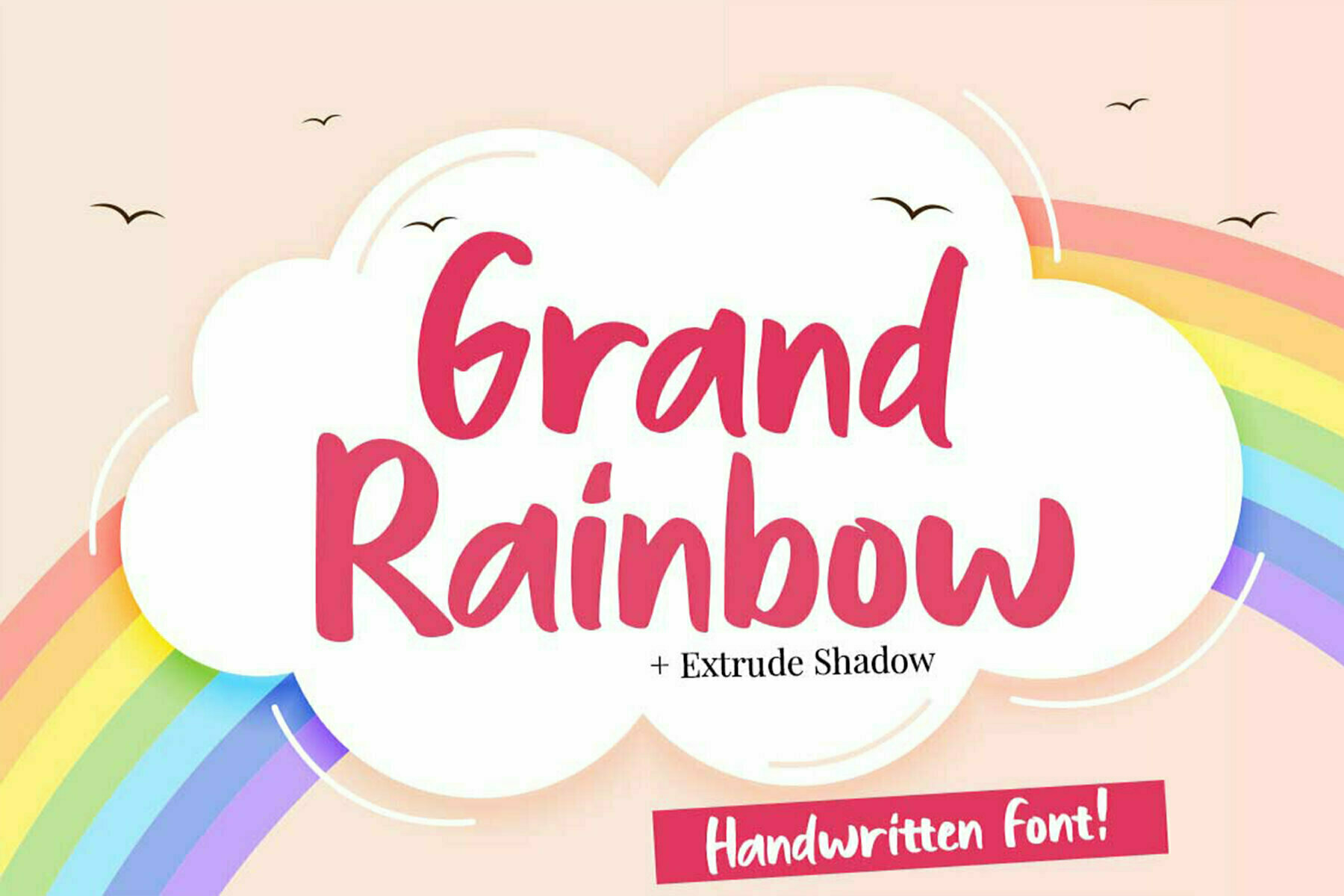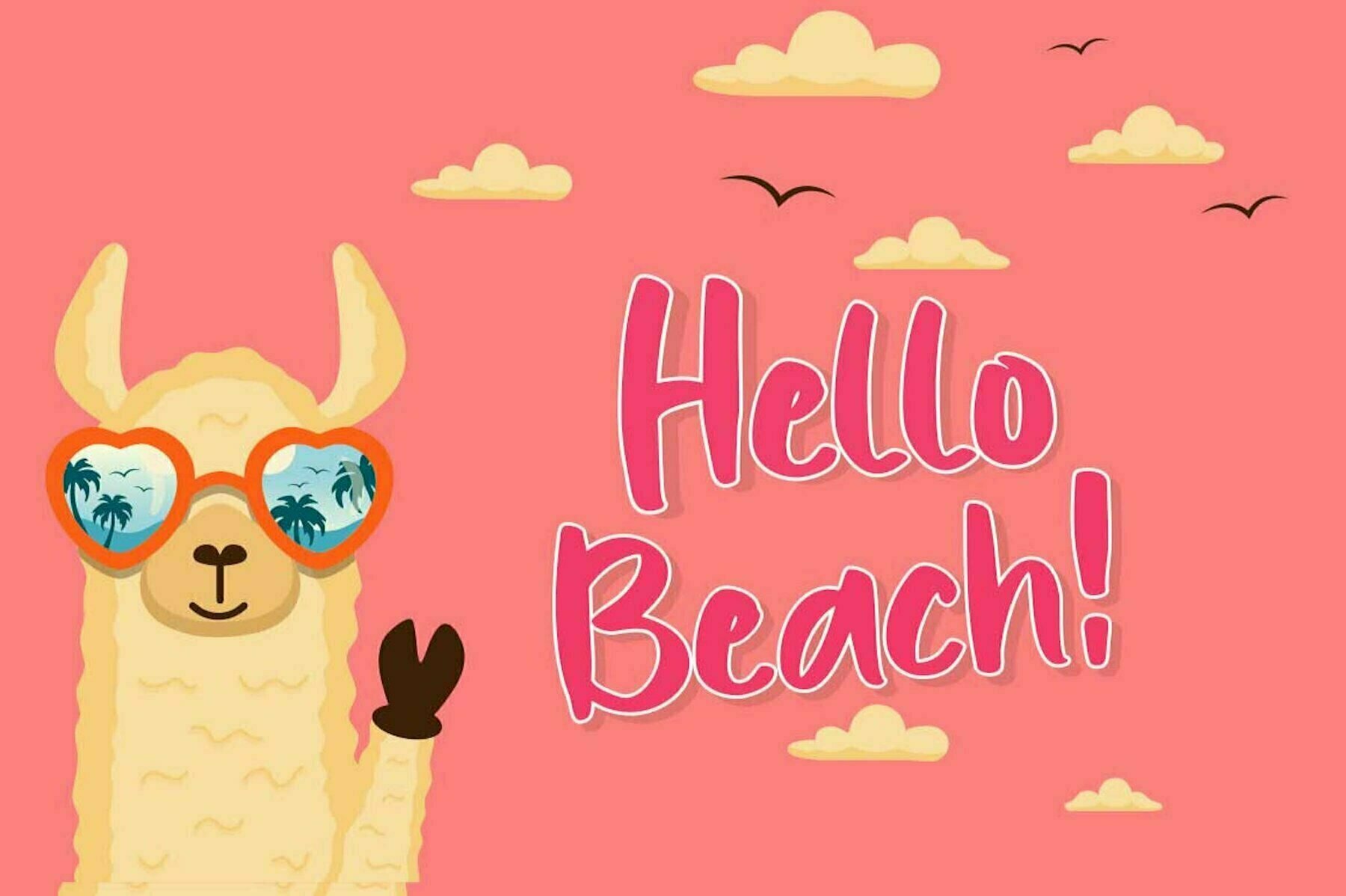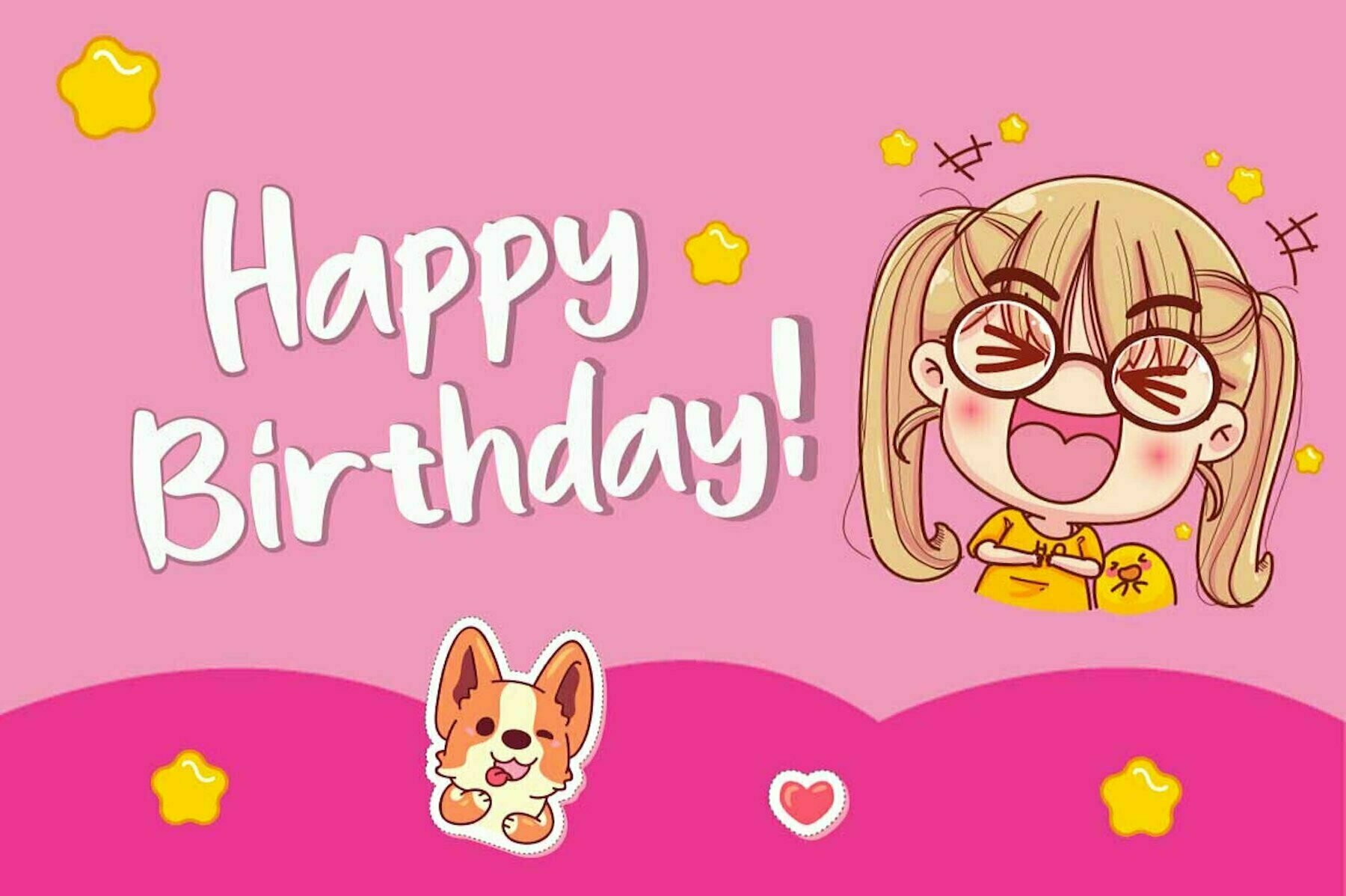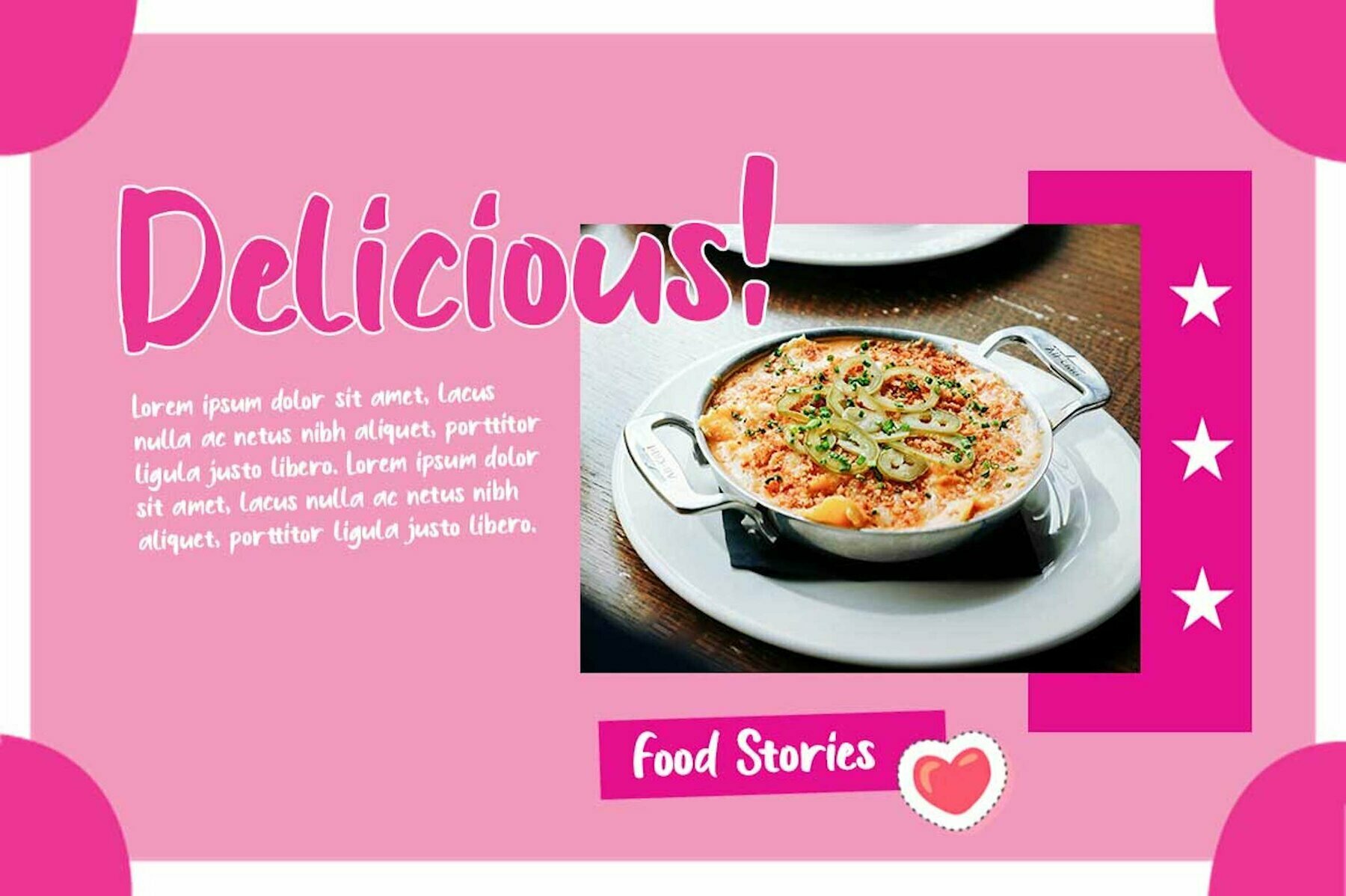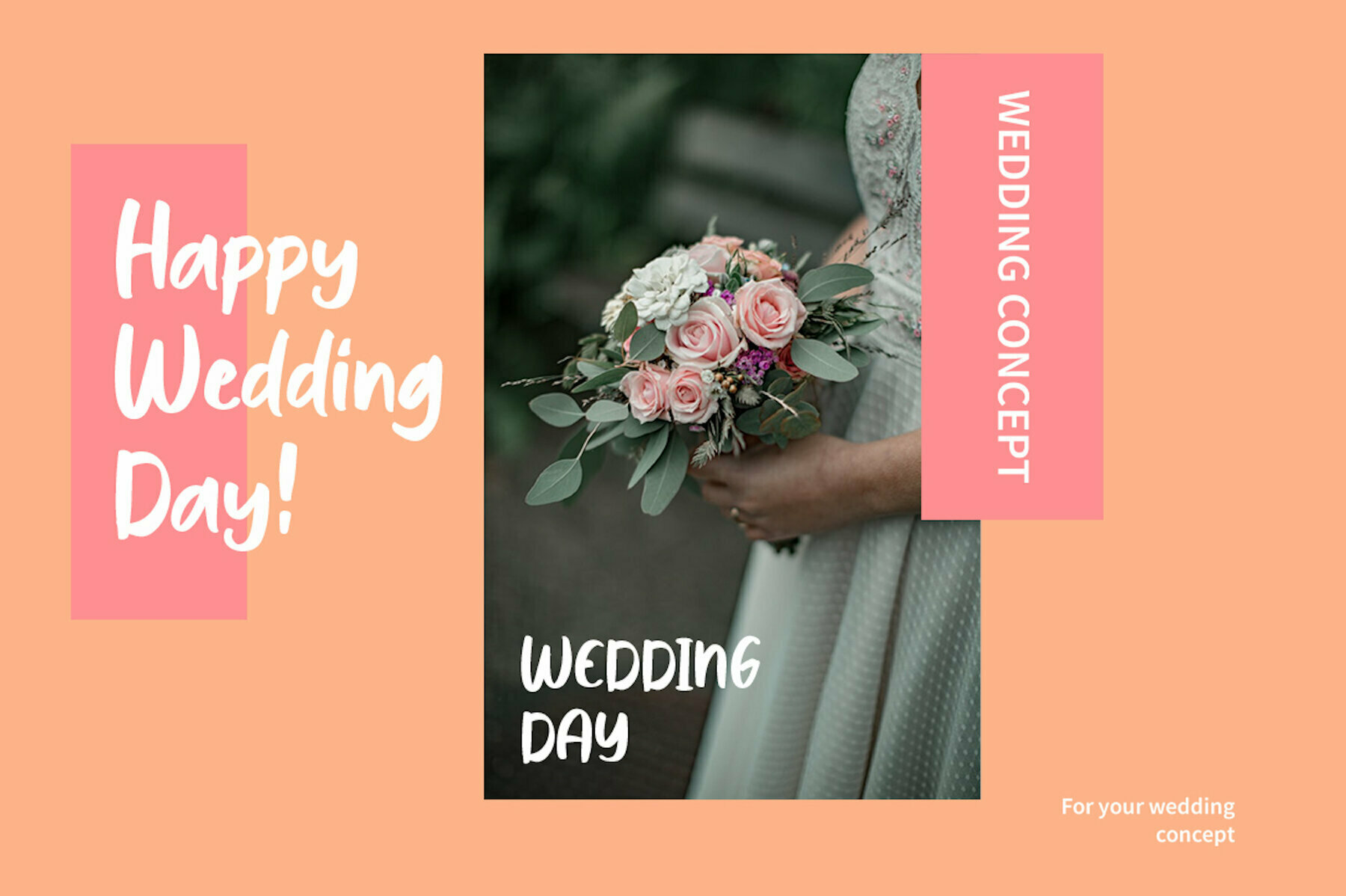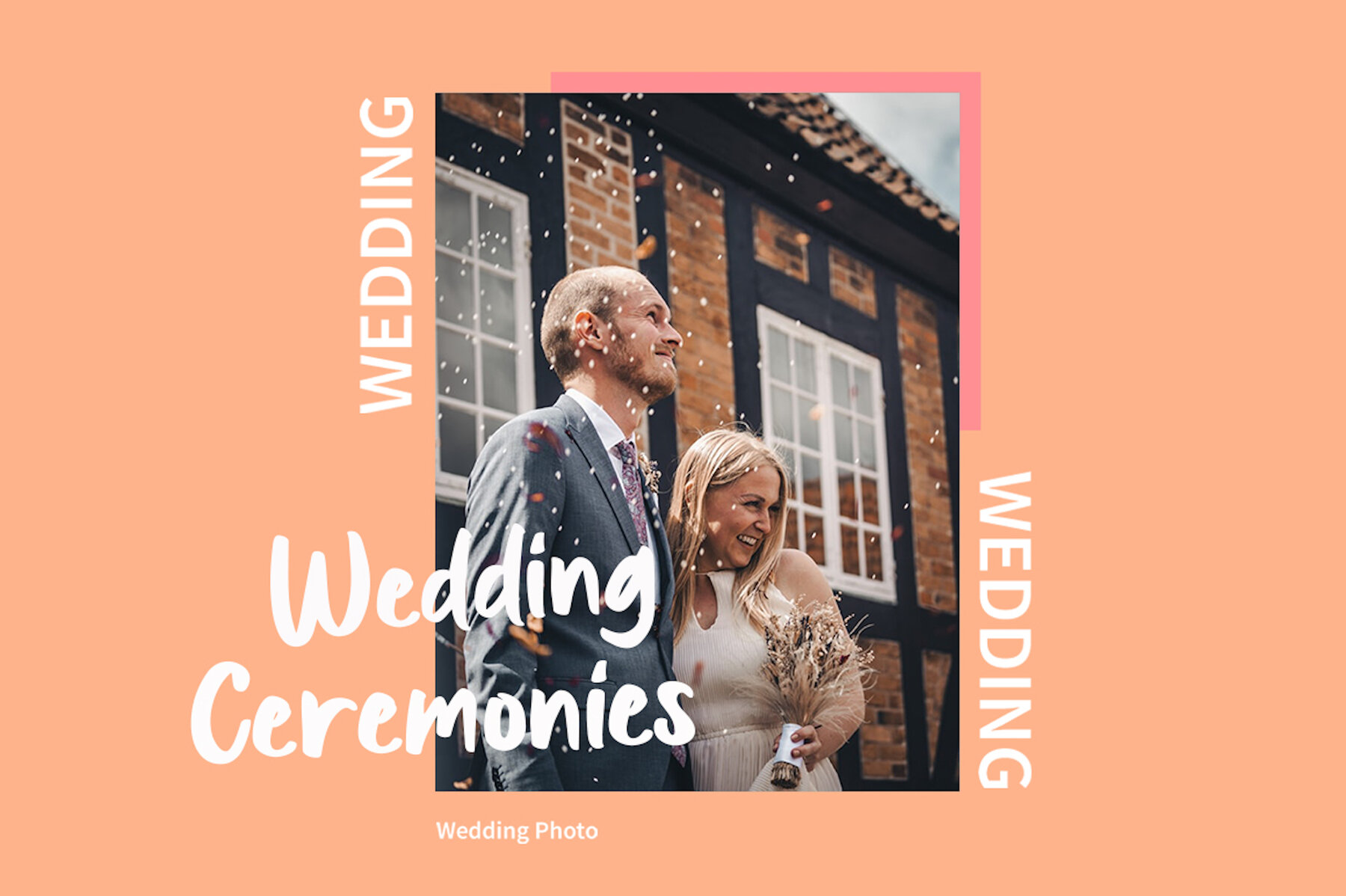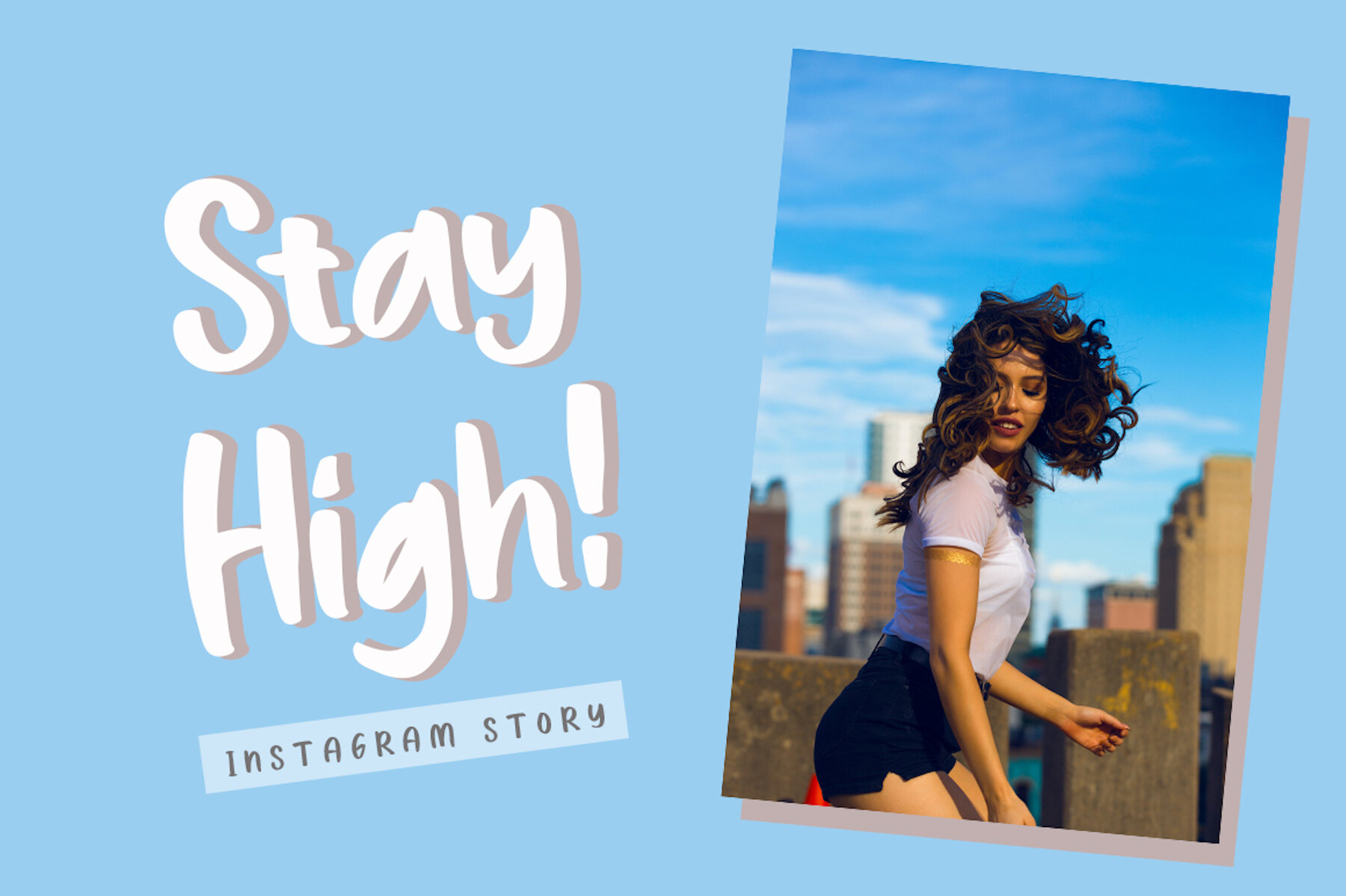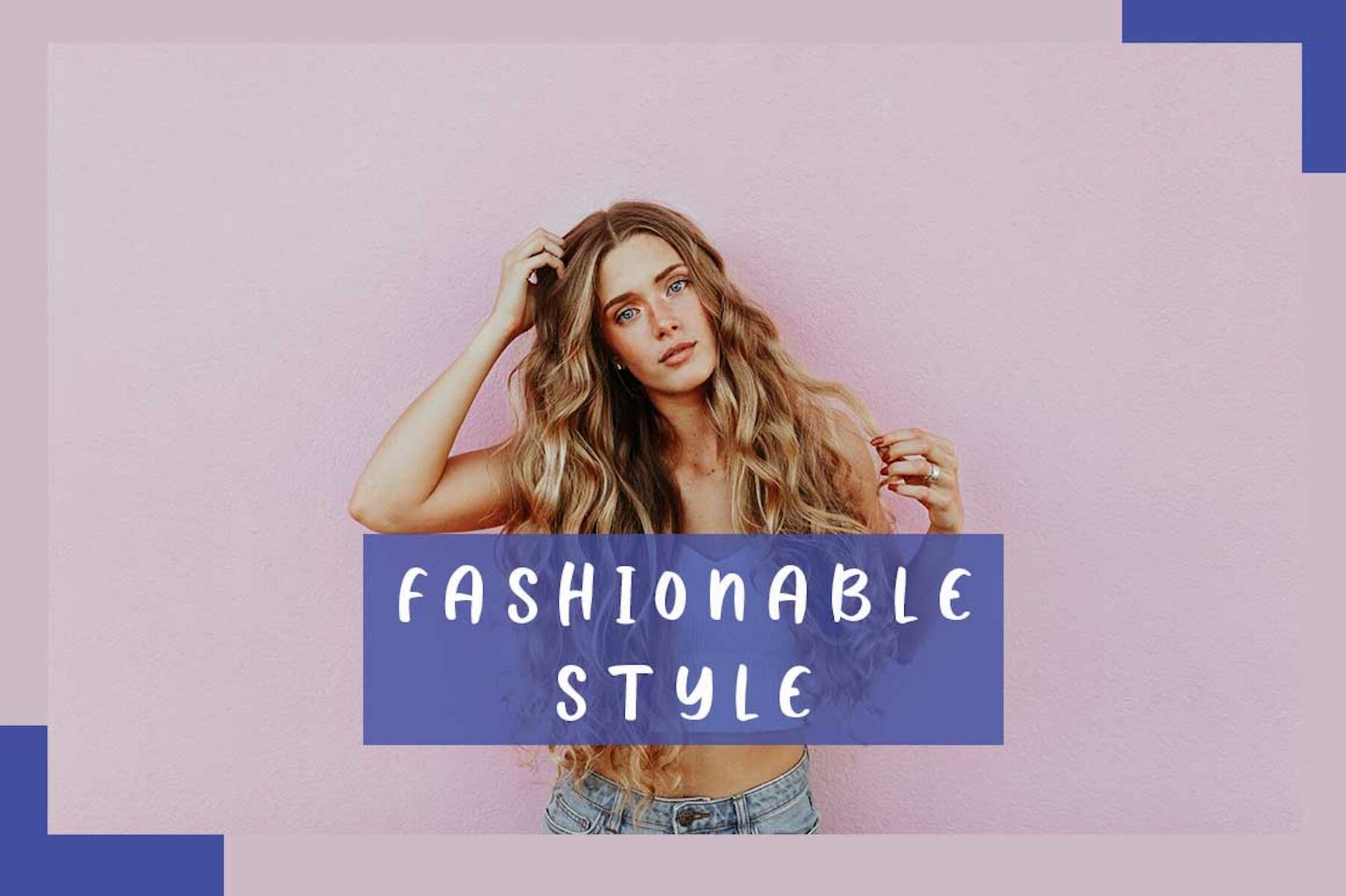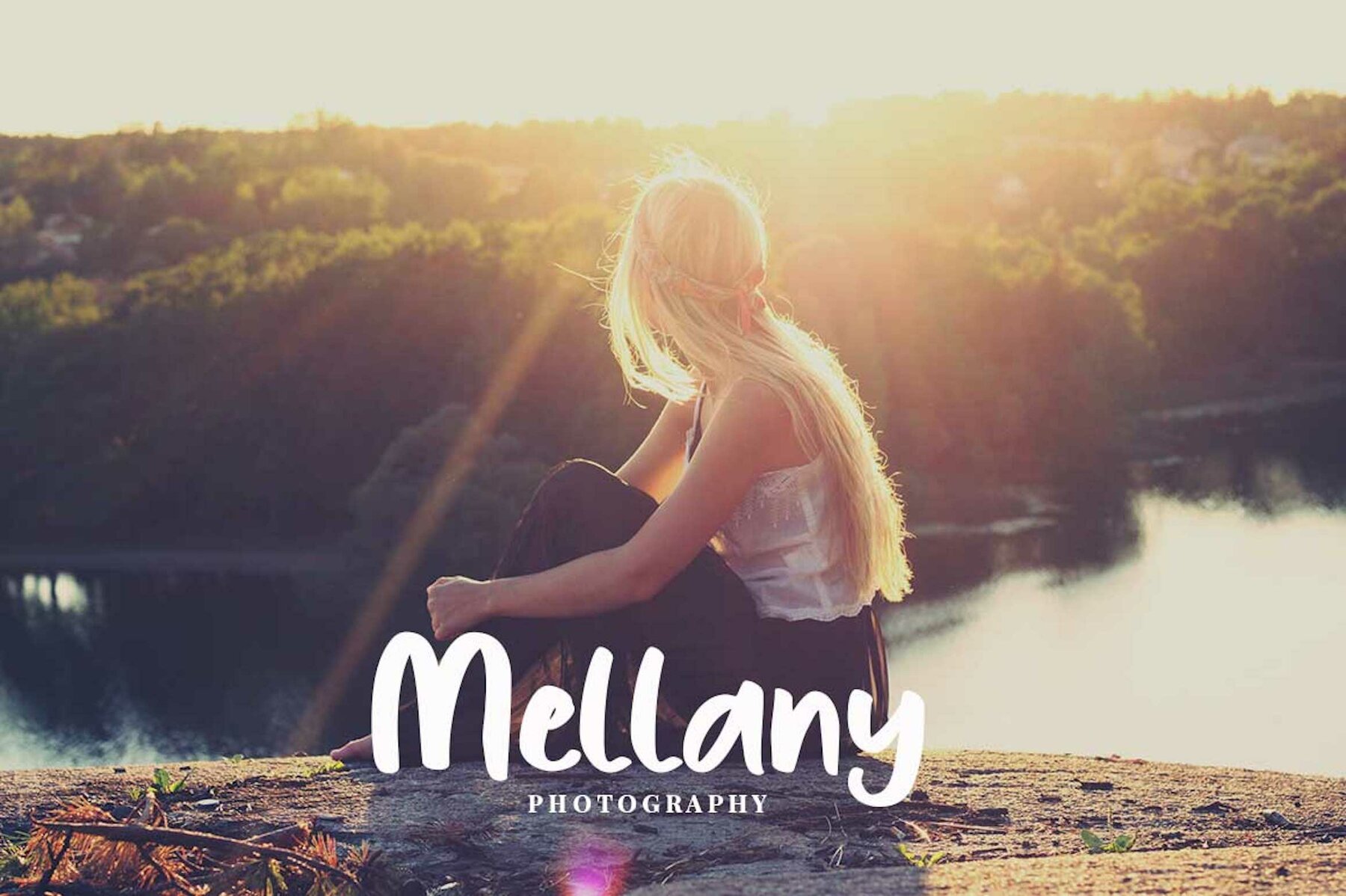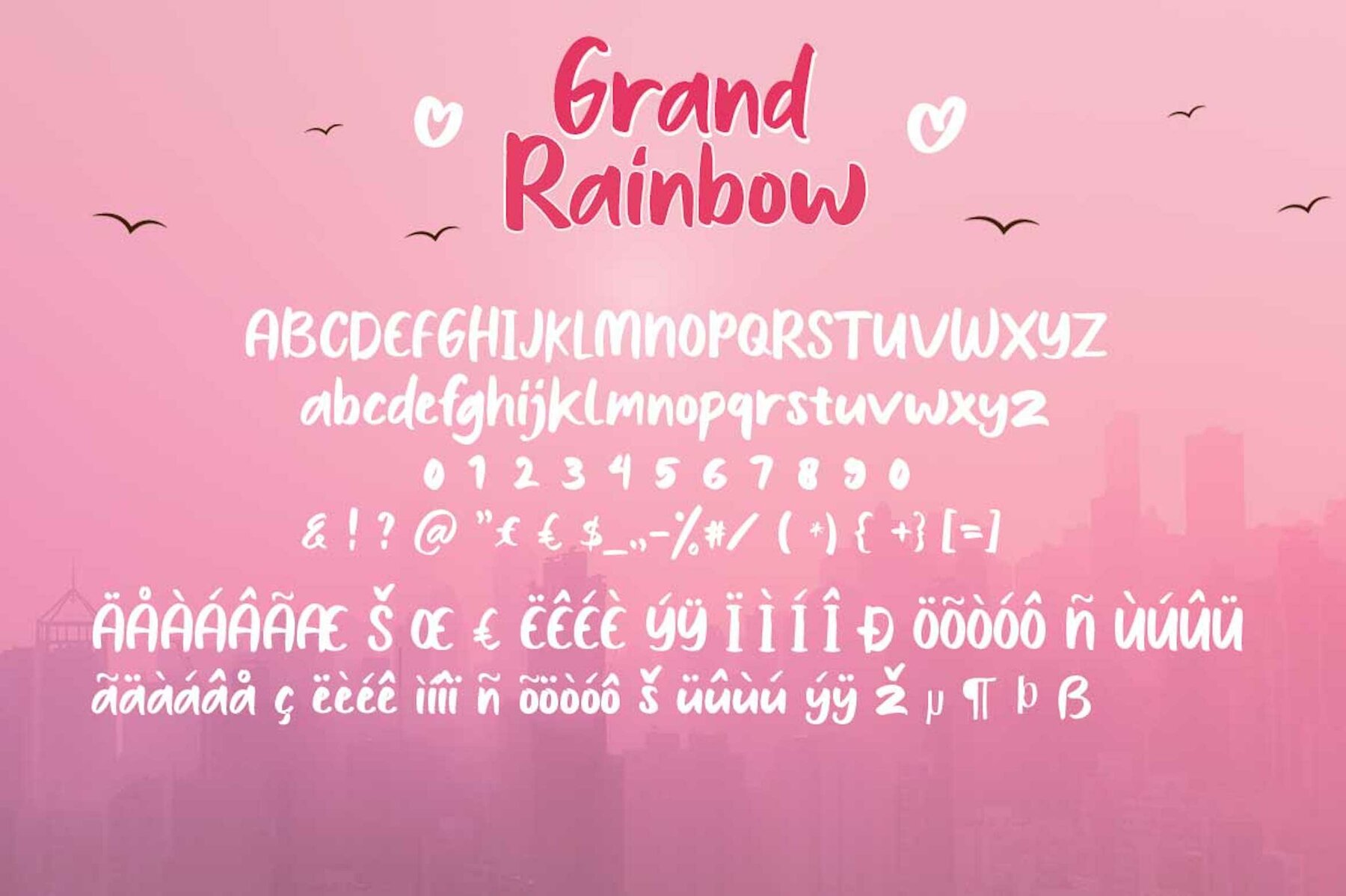
Grand Rainbow: Modern Calligraphy with Extrude Shadow Style
Grand Rainbow by Putra Khan introduces an exquisite touch to the world of modern calligraphy. This script font, featuring an extruded shadow style and two layered handwritten elements, brings a sophisticated flow to any design. It is perfect for adding typographic harmony to a variety of creative projects—including branding, logo design, typographic quotes, and more.
• Basic Latin – Includes both uppercase and lowercase letters.
• Numbers and Symbols – Essential for diverse applications.
• Multilanguage Support – Ideal for international use.